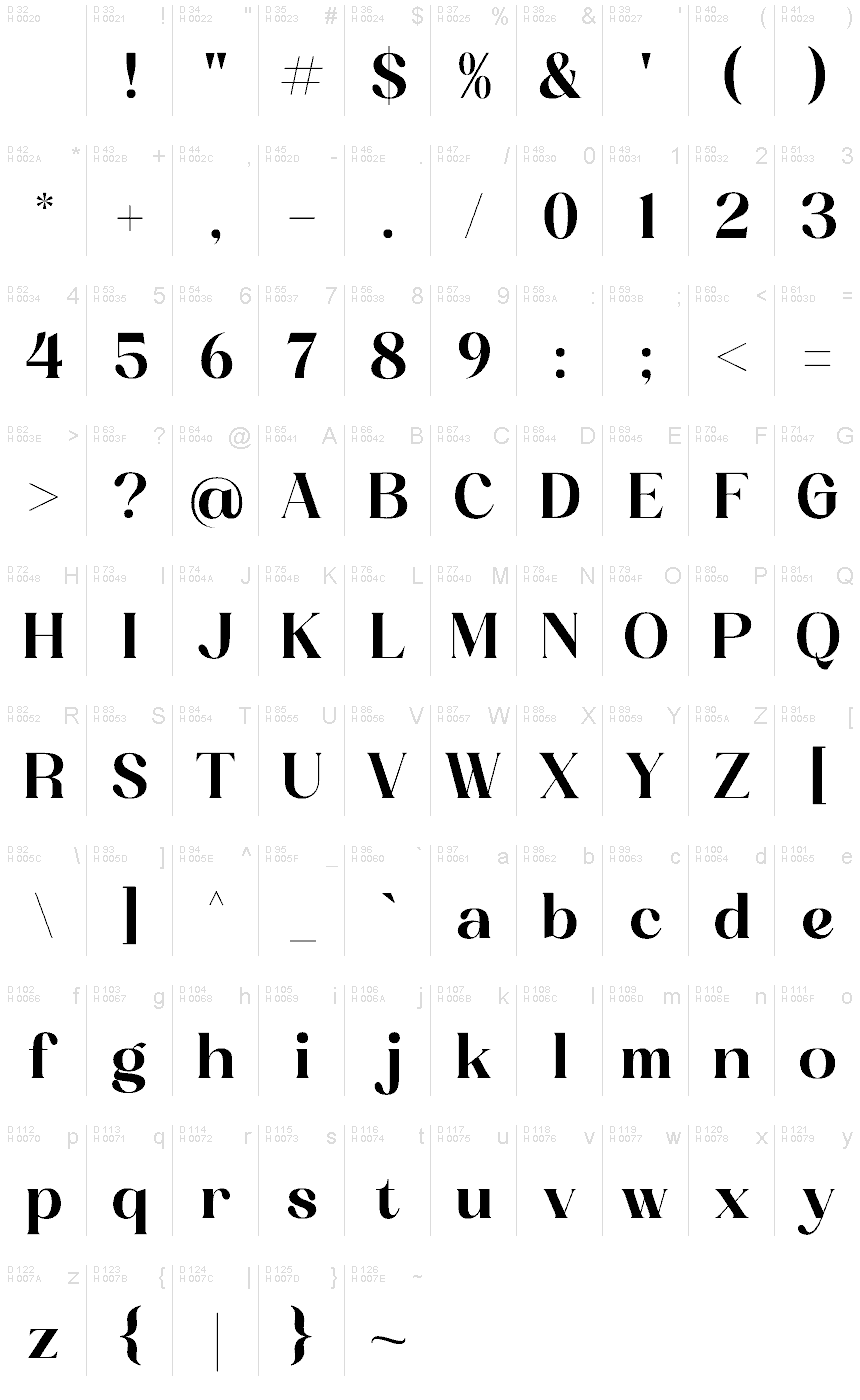
Achemost font, a design by Storytype Studio, is an elegant serif typeface built to impress. Its sophistication comes from both the balanced proportions and refined curves. Classic in style and rich in unseen details, it exudes subtle elegance when used at either big or small sizes.
Use this free serif font for non-fiction books, brochures, college magazines and newsletters, business cards, event invitations, weddings-related printed stuff and websites. With significantly zero design flaws compared to all other similar fonts designed recently achemost is a relevant theme that’s appropriate for many situations.